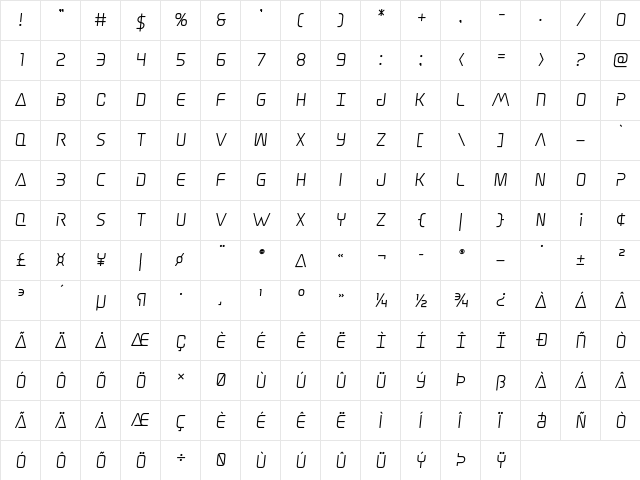
Elite Danger Semi-Bold Semi-Italic Font Preview
Design Context for Elite Danger Semi-Bold Semi-Italic Typeface
Elite Danger Semi-Bold Semi-Italic is a composed and adaptable typeface that performs quietly and consistently across a wide range of design contexts. Its italic angle brings a sense of urgency and motion to the letterforms. The heavy weight commands attention and anchors typographic hierarchies.
Pro Tip: Use Elite Danger Semi-Bold Semi-Italic for emphasis, pull quotes, and subheadings where its slanted energy can add rhythm to the layout.